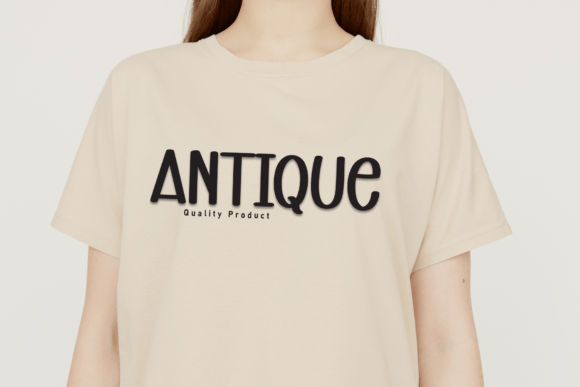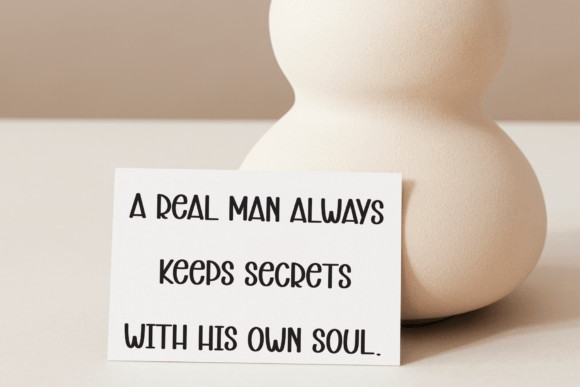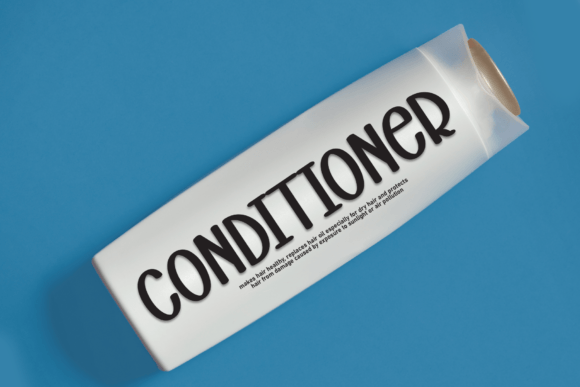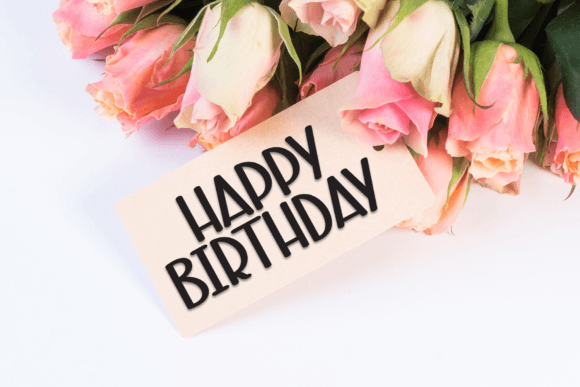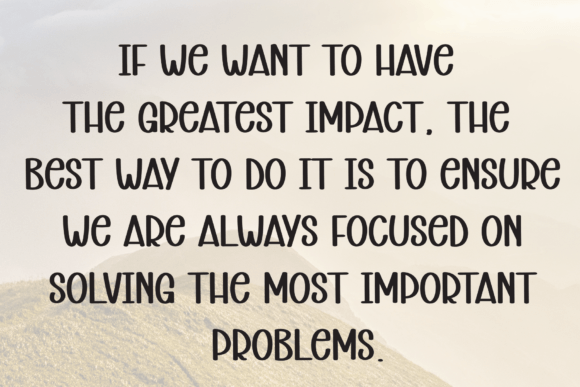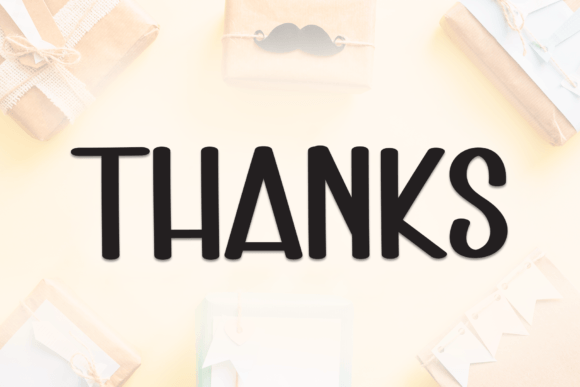
Introducing the Charming Daddy Package Font: Elevate Your Designs with a Personal Touch
In the world of digital design, fonts play a pivotal role in conveying the tone and personality of a project. Among the myriad of typefaces available, the “Daddy Package” handwritten display font stands out for its unique blend of playfulness and accessibility. This delightful font is designed to add a heartwarming touch to various creative endeavors, making it an excellent choice for designers and crafters looking to infuse their work with a personal and lively feel.
The Essence of Daddy Package Font
The Daddy Package font is a charming, handwritten display typeface that exudes warmth and friendliness. Its design is characterized by smooth lines, gentle curves, and a playful rhythm that makes it instantly appealing. This font is not just a tool for writing; it’s an expression of creativity that can turn any ordinary design into something extraordinary.
One of the key advantages of the Daddy Package font is its versatility. Whether you’re working on a charming wedding invitation, an expressive greeting card, or a sprightly design project, this font seamlessly aligns with various creative endeavors. Its adaptable nature makes it suitable for a wide range of applications, from digital designs to print materials.
Applications of Daddy Package Font
• Wedding Invitations: Add a touch of elegance and playfulness to your wedding invitations. The Daddy Package font is perfect for creating memorable and personalized wedding stationery.
• Greeting Cards: Express your feelings with a personal touch. This font is ideal for creating heartfelt greeting cards for various occasions, from birthdays to thank-you notes.
• Design Projects: Infuse your design projects with a lively and engaging touch. The Daddy Package font is great for creating posters, flyers, and other visual materials that require a friendly and approachable tone.
Why Choose Daddy Package Font?
Choosing the right font for your project can be daunting, given the numerous options available. However, the Daddy Package font offers several compelling reasons to be your top pick:
• Unique Personality: This font brings a unique personality to your designs, setting them apart from the rest.
• Easy to Read: Despite its playful nature, the Daddy Package font remains highly legible, making it suitable for both headings and body text.
• Customizable: The font comes with a range of customization options, allowing you to tweak it to fit your project’s specific needs.
Tips for Using Daddy Package Font Effectively
To make the most of the Daddy Package font, consider the following tips:
• Pair with Contrasting Fonts: Combine the Daddy Package font with contrasting fonts to create visual hierarchy and add depth to your designs.
• Experiment with Colors: Don’t be afraid to experiment with different colors. The Daddy Package font works well with a variety of color schemes, from pastels to bold hues.
• Play with Sizes: Utilize different font sizes to create emphasis and guide the viewer’s eye through your design.